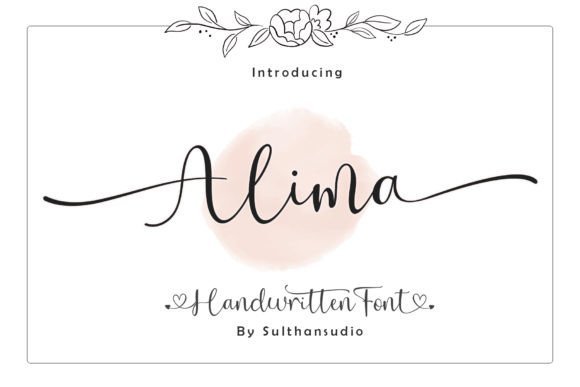
Discover the Magic of Alima Font
Have you ever sat at your desk, staring at a blank page, waiting for inspiration to strike? That’s exactly where I was when I first discovered the Alima Font. It was as if the font was calling out to me, begging to be used to create something truly special.
As I delved deeper into the world of Alima Font, I realized that it was more than just a font – it was a tool to bring my designs to life. With its unique and beautiful touch, every letter of the Alima Font is a masterpiece waiting to be used. Whether you’re creating a logo, branding, or a simple quote, the Alima Font is the perfect choice to make your design stand out.
For designers, the Alima Font is a valuable addition to their toolkit. Its timeless and lovely handwritten style makes it easy to incorporate into any project, ensuring that your designs are always eye-catching and memorable.
Alima Font Key Features
- Unique Characteristics: Alima Font features a unique blend of traditional and modern elements, with intricate details and ornate flourishes.
- Font Style: Alima Font is available in various styles, including regular, bold, italic, and bold italic, allowing for versatility in typography.
- Language Support: Alima Font supports a wide range of languages, including Latin, Cyrillic, and Arabic scripts, making it a great choice for multilingual designs.
Alima Font Review
Overall, I think the Alima font is a nice addition to any designer’s toolkit. ✨ It has a unique and elegant style that can add a touch of sophistication to any design. The font is highly customizable, allowing you to adjust the weight, spacing, and other attributes to fit your needs.
One of the standout features of Alima is its excellent readability. ✨ The font is designed to be clear and easy to read, even at smaller font sizes. This makes it perfect for body text, captions, and other areas where readability is crucial.
However, there are a few limitations to consider: ⚠️ The font lacks a bold weight, which can make it difficult to use in situations where a bold font is required. Additionally, the font’s style may not be to everyone’s taste, and some designers may find it too ornate or over-the-top.
Here are some specific features of the Alima font:
- Excellent readability
- Unique and elegant style
- Lacks bold weight
- May not be to everyone’s taste
Overall, I think the Alima font is a solid choice for designers who want to add a touch of elegance to their work. While it may have some limitations, its unique style and excellent readability make it a worthwhile addition to any font collection.
Alima Font Practical Application Guide
Alima font is particularly suitable for creating elegant and sophisticated text overlays in Canva.
Alima font is ideal for creating elegant typography in Adobe Creative Cloud applications.
Alima font is suitable for creating elegant and professional-looking text in PowerPoint and Word.
Tips for Getting the Most Out of Alima Font
To get the most out of the Alima font, follow these tips:
- Use the font in conjunction with other elegant fonts for a sophisticated look.
- Use the font for headings and titles to create a clear hierarchy of text.
The Alima font is commonly used for:
Alternatives to Alima Font
Great Vibes Font is a beautiful, elegant script font perfect for adding a touch of sophistication to your designs. It’s ideal for use in branding, invitations, and other materials where a high-end feel is desired.
Compared to Alima Font, Great Vibes Font has a more refined and luxurious look, making it suitable for high-end brands and projects. While Alima Font is more playful and versatile, Great Vibes Font is more suited for formal and elegant designs.